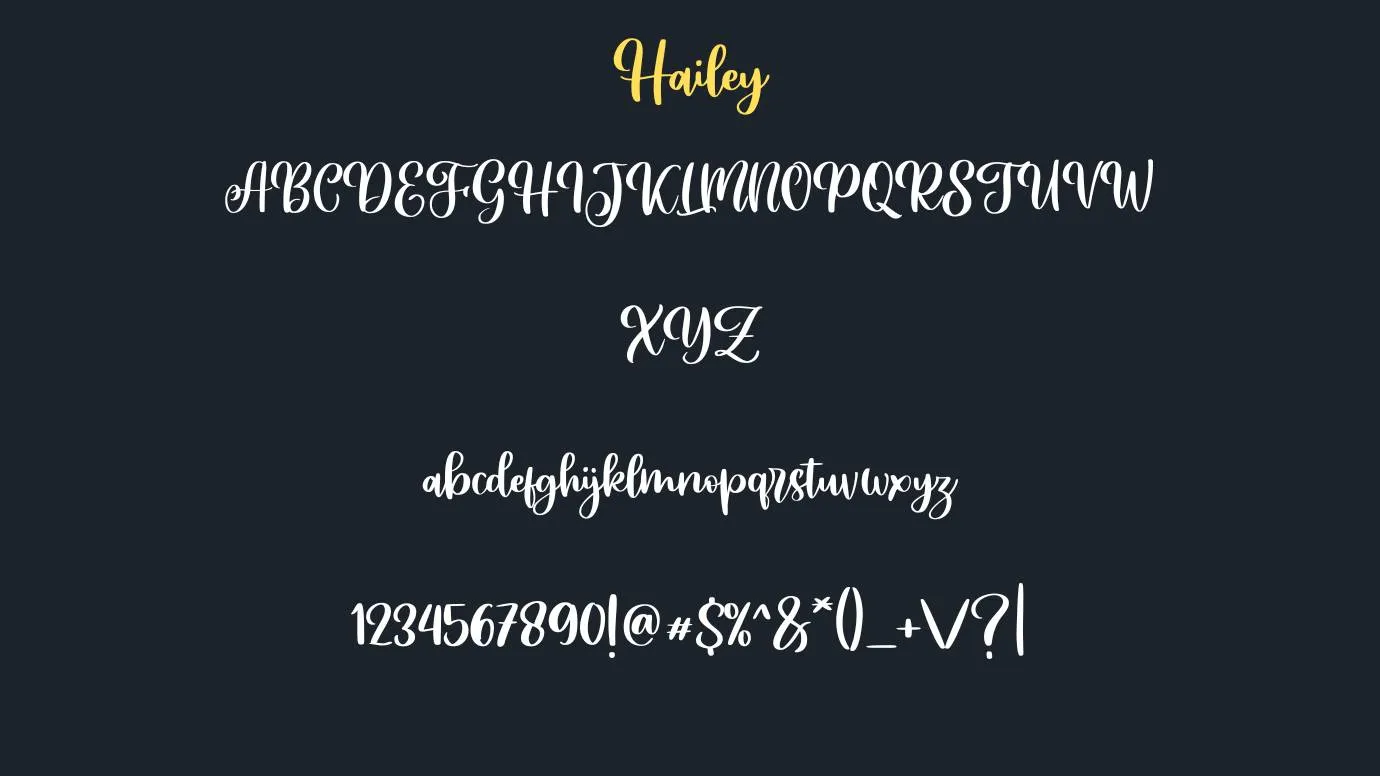
Introducing Hailey Font! Hailey is a unique typeface that comes in the script family. It comes with bold and long swashes that make your script or other design more eye-catching. This is the main reason for its popularity which is increasing day by day. Typefactory is the main designer of this font.
What is the Type of Font Hailey?
The main type of this font is a script and the main designer and publisher of this font are Typefactory which is a famous font foundry. This script font has small and bold shape letters with helpful benefits.
The designer can use it for the process of script design due to its flexible features. This modern font has unique characters including uppercase and lowercase letters and fantastic glyphs along with 1024 units per em.
Hailey Font
Available Weights and Styles in Hailey Font
Hailey Font has different classic styles and weights. All of these attractive styles are attainable with matching italics. Here, the styles of this font family are available.
• Regular
• Bold
• Italics
These styles are very helpful for designers whether they designed different classic headlines, posters, logos, and other different designs. They pick any style of their exact need and use it in multiple projects.
Similar Fonts To Hailey Font
The art of pairing fonts is very essential for the best designs. The cohesive look of this typeface makes it enables it to pair with a different script and handwritten fonts. This typography can also pair well with Easy November Font and as a results provide more classic designs. Also, you can pair this typeface with Majestic Font and Autography Font. Both of these typefaces are similar to this typeface in various terms and appearances.
Hailey Font
The Role of Hailey Font in Logo Design
The main use of this typeface is for different types of logo designs. You can pick this font for different symbol designs, wall murals designs, text designs, watermark logo designs, and brochure layout design purposes. It is also great for use in social media post designs, famous companies’ logo designs, and amazing look assignments design purposes.
This font is also great for use in function invites card designs, web page designs, postcard designs, and certificate card design purposes. It is also appropriate for decorative designs, comic cover designs, home decor designs, wallpaper designs, and signature design purposes.
This eye-catching font is suitable for logo designs, letterhead designs, symbol designs, and related design purposes. Due to its huge popularity and unique lettering, this font is suitable for making pairing with the blacklist font. It is also good for flyer designs and template designs.
What is the category of Hailey Font?
This fantastic typeface belongs to the category of script fonts. That’s why many designers use this typeface for their projects.